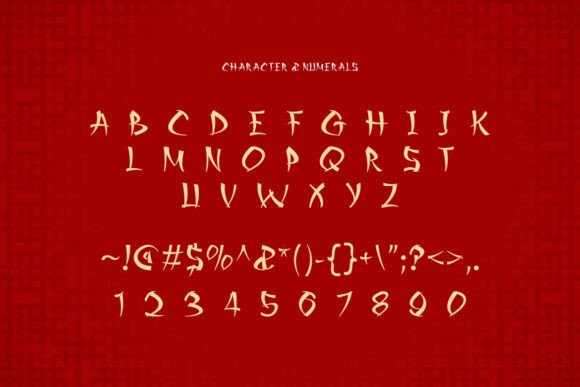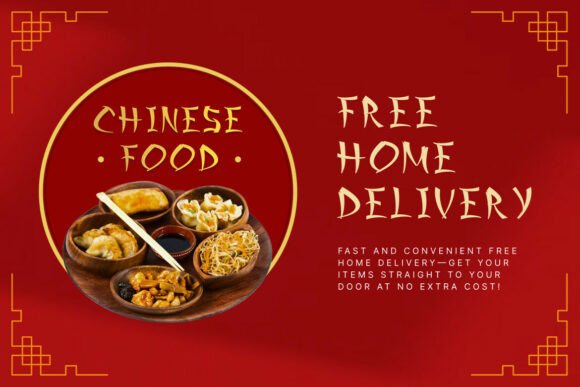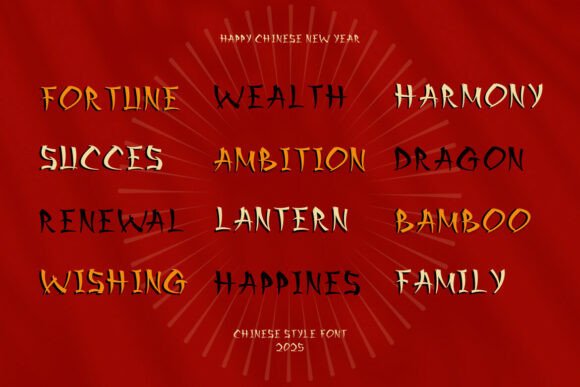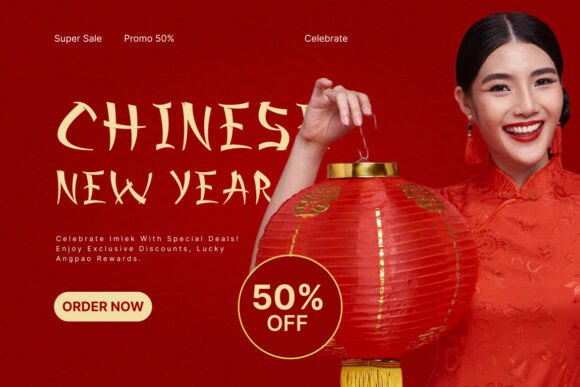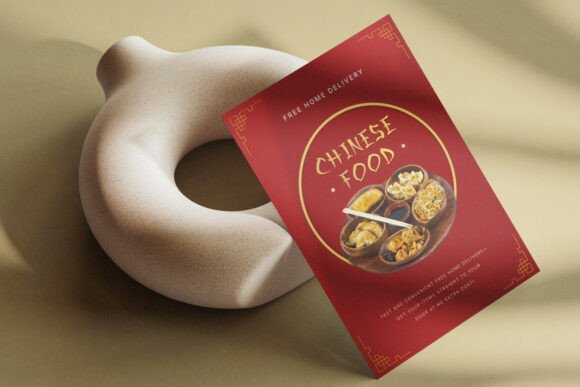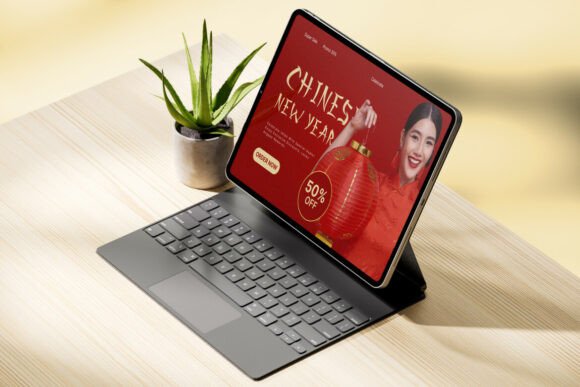
Introducing Gekkai Font: A Striking Chinese-Style Typeface with a Modern Twist
In the world of typography, few fonts have managed to capture the essence of traditional East Asian calligraphy while infusing it with a bold and dynamic modern twist. Gekkai Font is one such exceptional typeface that embodies the perfect blend of heritage and contemporary style. With its strong and evocative energy, Gekkai is an ideal choice for designers and crafters seeking to add an authentic and impactful Asian-inspired aesthetic to their projects.
The Essence of Traditional East Asian Calligraphy
Gekkai Font draws inspiration from the rich cultural heritage of East Asian calligraphy, which has been a cornerstone of traditional Chinese, Japanese, and Korean art forms for centuries. The font’s design is deeply rooted in the principles of traditional calligraphy, with intricate strokes and bold lines that evoke a sense of history and cultural significance. However, Gekkai also introduces a modern twist, making it a versatile and dynamic typeface that can be used in a wide range of design applications.
A Font for Designs that Demand Heritage and Strength
Gekkai Font is perfect for designs that aim to convey a sense of heritage, strength, mysticism, or vibrant cultural celebration. Its bold and striking appearance makes it an excellent choice for projects that require a strong visual presence, such as branding, logos, posters, and packaging. The font’s dynamic energy also lends itself well to editorial headlines, social media graphics, and event promotions, where it can add a touch of excitement and energy to the design.
One of the standout features of Gekkai Font is its incredible versatility. The font can be used in a wide range of design applications, from traditional print materials to digital platforms. Some of the many use cases for Gekkai include:
- Branding: Create a lasting impression with Gekkai’s bold and striking appearance, perfect for logos, business cards, and letterheads.
- Packaging: Add an authentic touch to product packaging and make it stand out on store shelves.
- Posters and Flyers: Create eye-catching posters and flyers that grab attention and convey a sense of energy and excitement.
- Editorial Headlines: Elevate your editorial content with Gekkai’s dynamic and attention-grabbing headlines.
- Social Media: Make your social media graphics pop with Gekkai’s bold and modern style.
- Event Promotion: Create striking event promotions, including posters, flyers, and social media graphics.
- Album Art and Book Covers: Add a touch of elegance and sophistication to album art and book covers.
- Gaming Titles: Create bold and striking gaming titles that grab attention and convey a sense of excitement.
- Restaurant Menus: Add a touch of cultural authenticity to restaurant menus and make them stand out.
- Cultural Institution Branding: Create a lasting impression with Gekkai’s bold and striking appearance, perfect for cultural institutions, museums, and art galleries.
- Digital and Print Advertisements: Make your advertisements stand out with Gekkai’s dynamic and attention-grabbing style.
Why Choose Gekkai Font?
With so many fonts available, why choose Gekkai Font for your design projects? Here are just a few reasons why Gekkai stands out:
- Unique and Impactful: Gekkai Font offers a unique and impactful visual presence that is sure to grab attention.
- Authentic and Cultural: The font’s design is deeply rooted in traditional East Asian calligraphy, making it an excellent choice for projects that require an authentic and cultural touch.
- Versatile: Gekkai Font can be used in a wide range of design applications, from traditional print materials to digital platforms.
- Modern and Dynamic: The font’s bold and dynamic style makes it perfect for designs that demand a modern and energetic feel.
In conclusion, Gekkai Font is an exceptional Chinese-style typeface that powerfully captures the essence of traditional East Asian calligraphy with a bold and dynamic modern twist. Its energy is strong and evocative, making it perfect for designs that aim to convey a sense of heritage, strength, mysticism, or vibrant cultural celebration. With its incredible versatility and unique visual presence, Gekkai Font is an excellent choice for designers and crafters seeking to add an authentic and impactful Asian-inspired aesthetic to their projects.